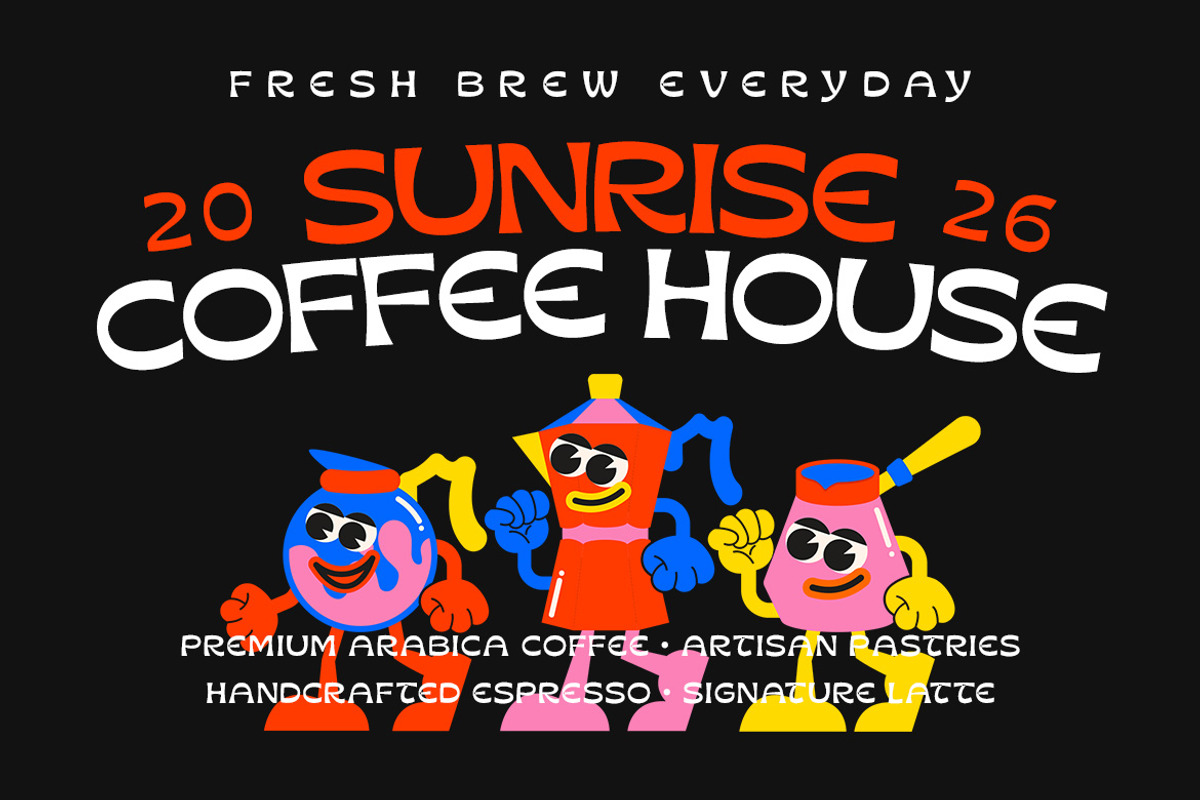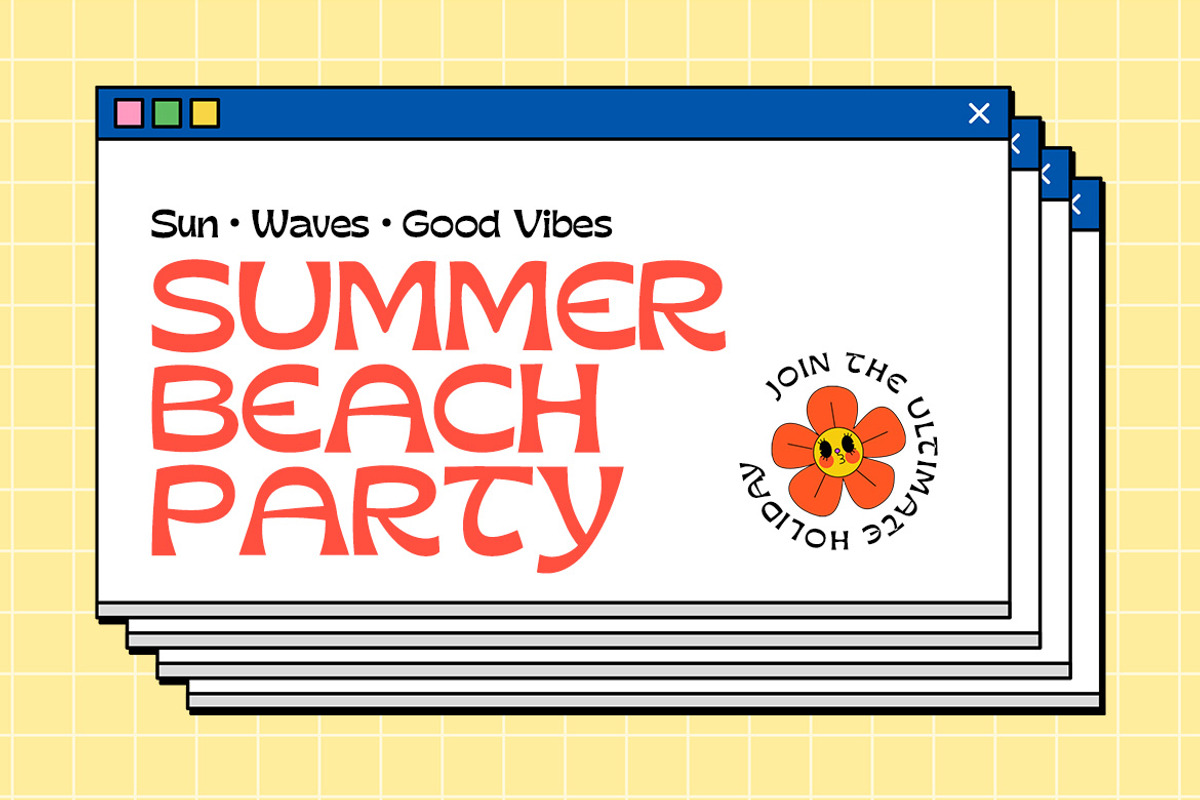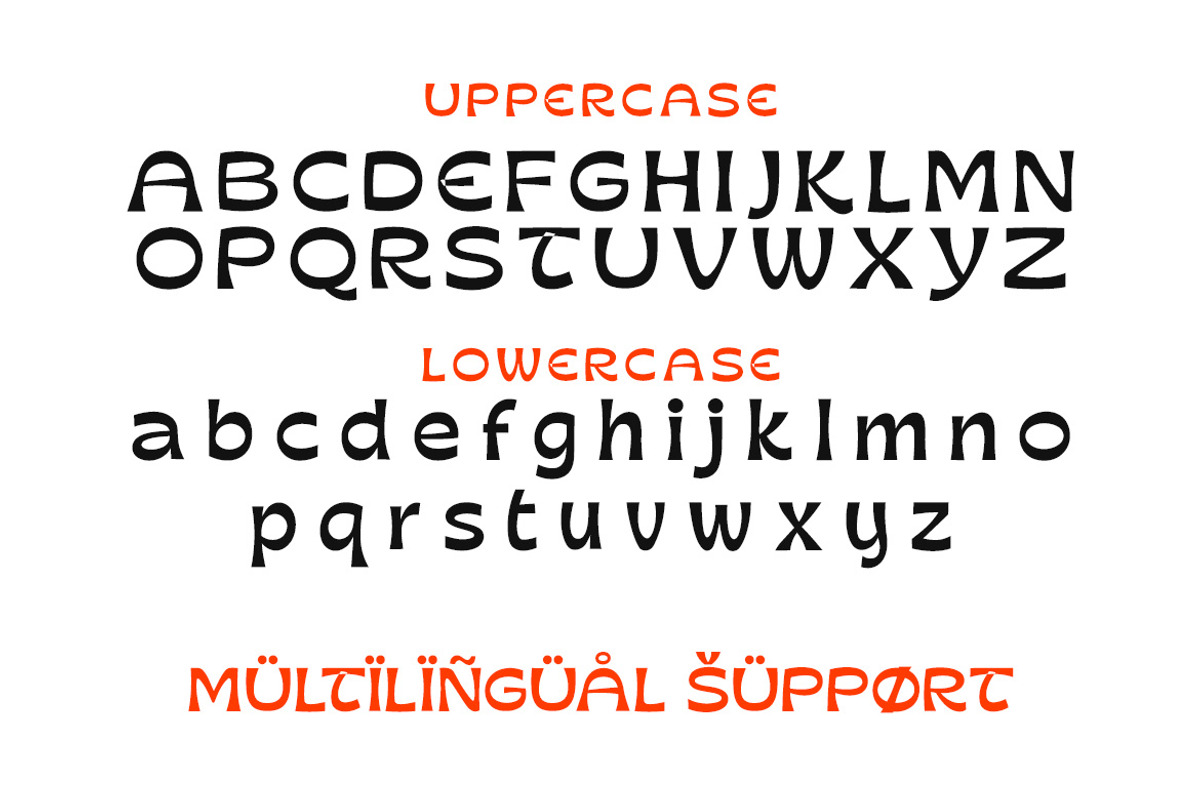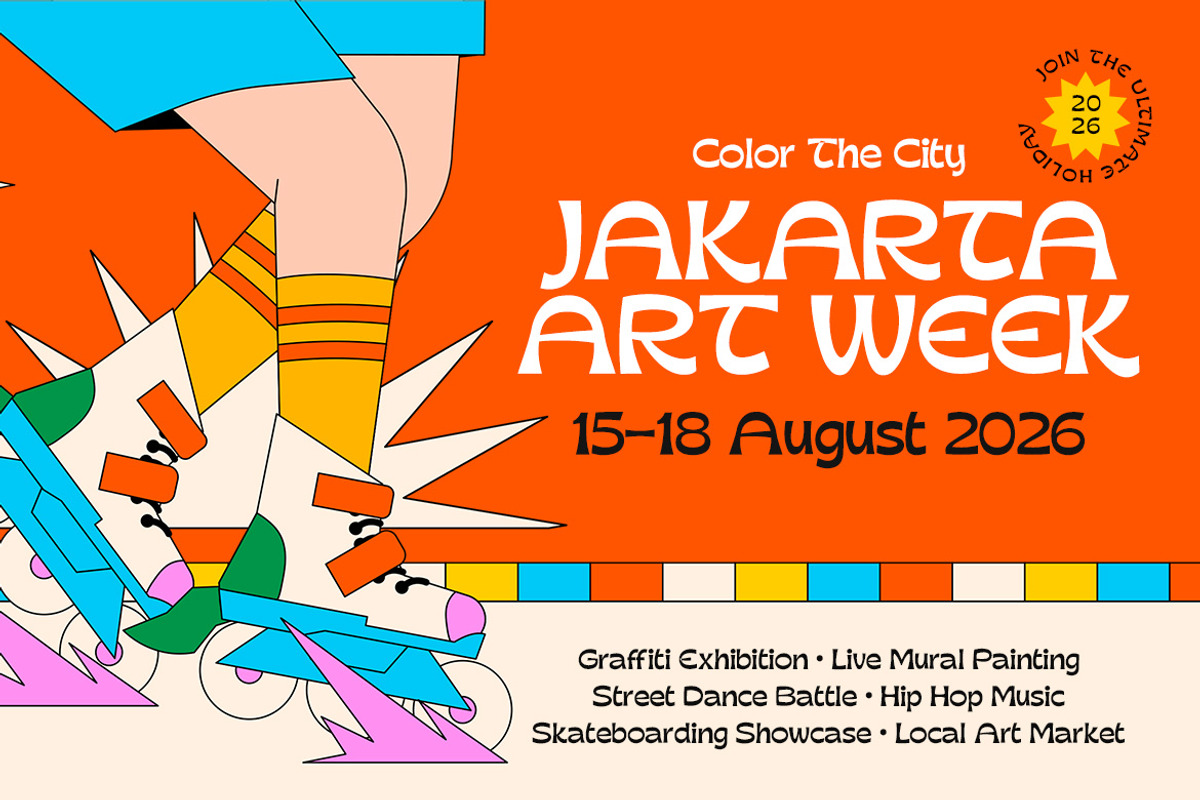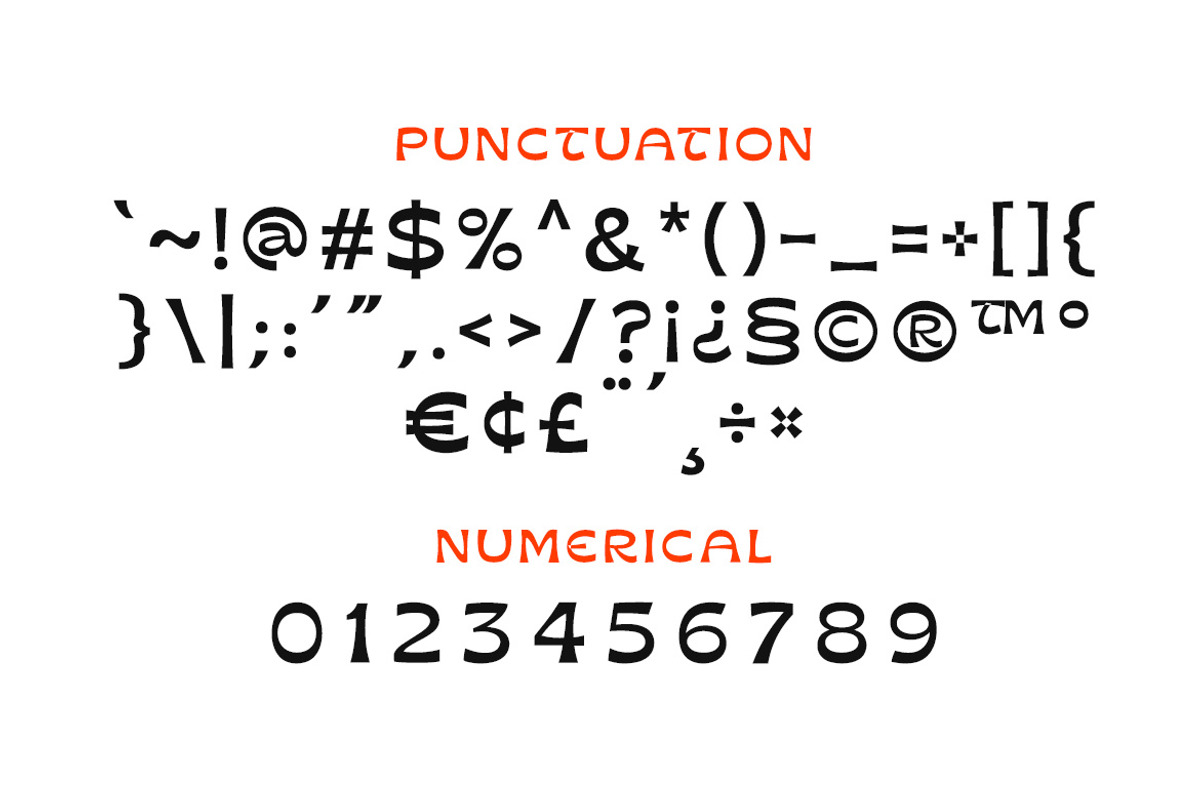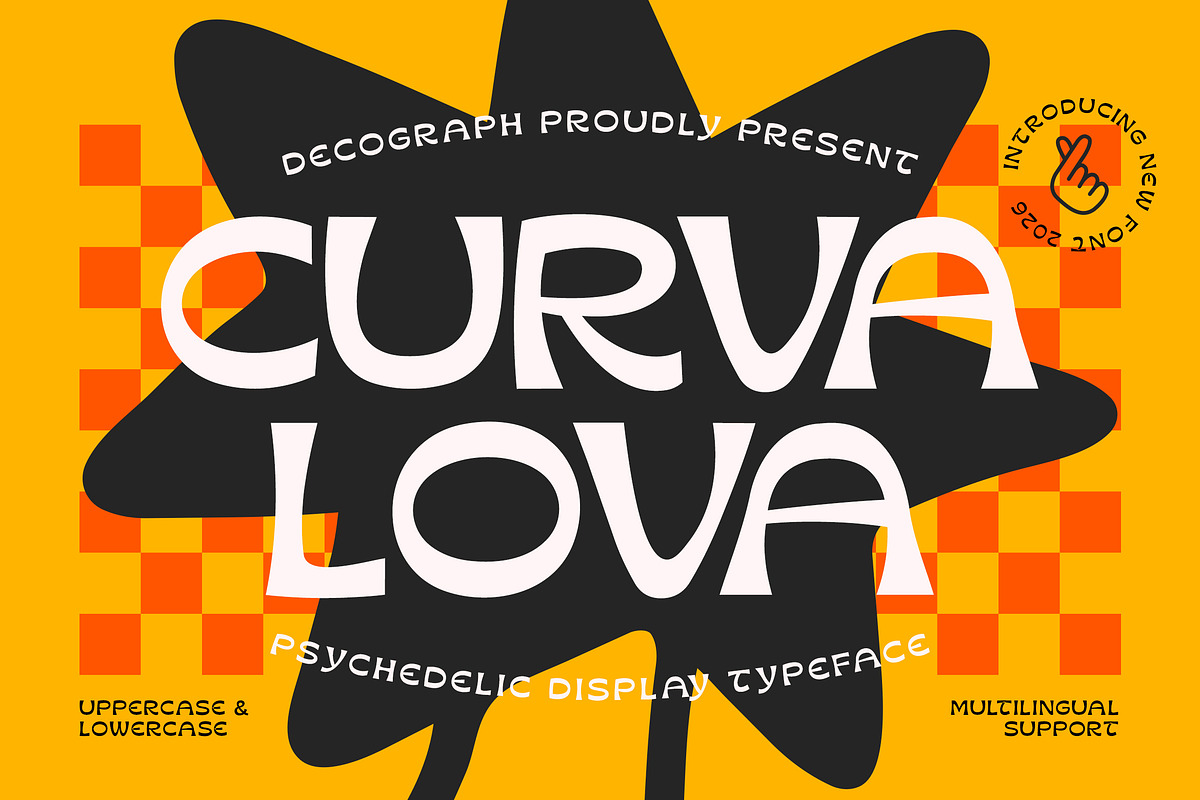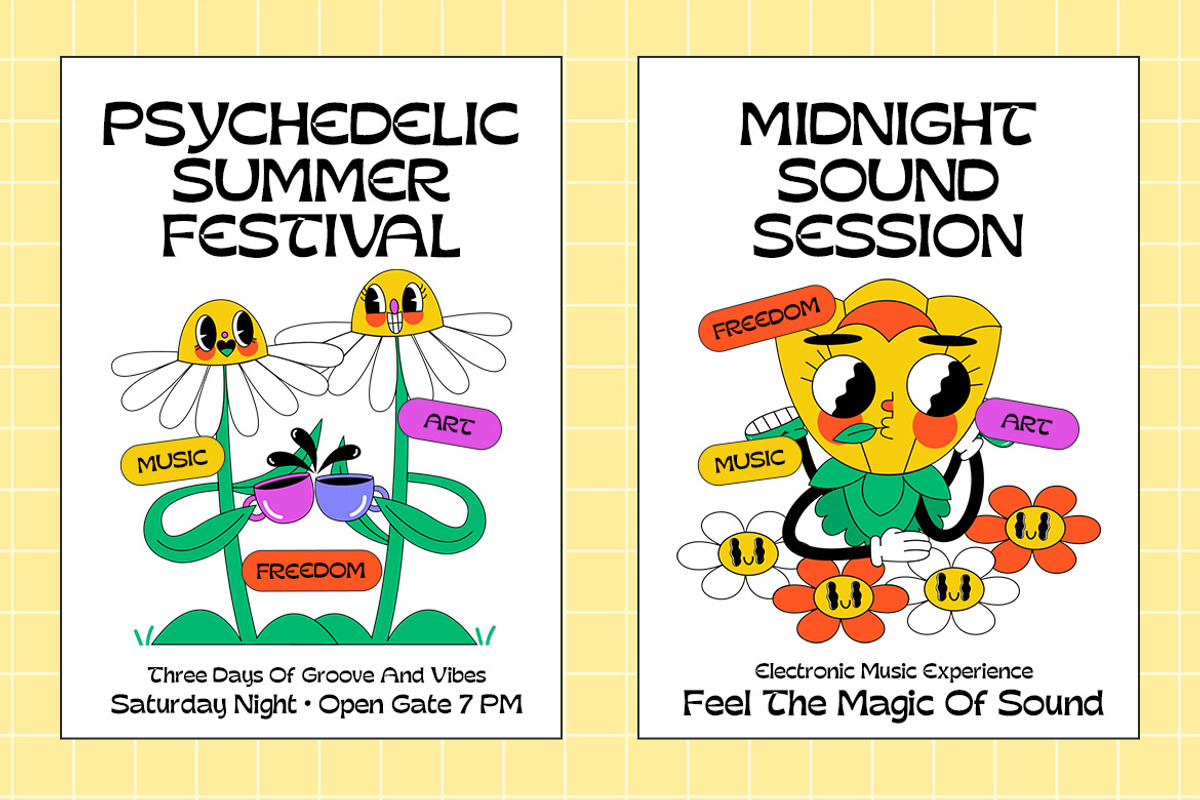
Curva Lova – Psychedelic Display
Curva Lova is a groovy psychedelic display typeface that celebrates fluid curves, playful distortion, and retro-futuristic vibes, featuring soft rounded forms and unconventional letter structures that create a bold, eye-catching rhythm. Its unique personality blends 70s-inspired aesthetics with a modern twist, making it perfect for experimental branding, music posters, album covers, creative packaging, and vibrant digital content. Designed to stand out, Curva Lova brings a fun, trippy, and expressive energy that transforms any layout into a visually captivating experience.
:FEATURES:
- Smooth Kerning